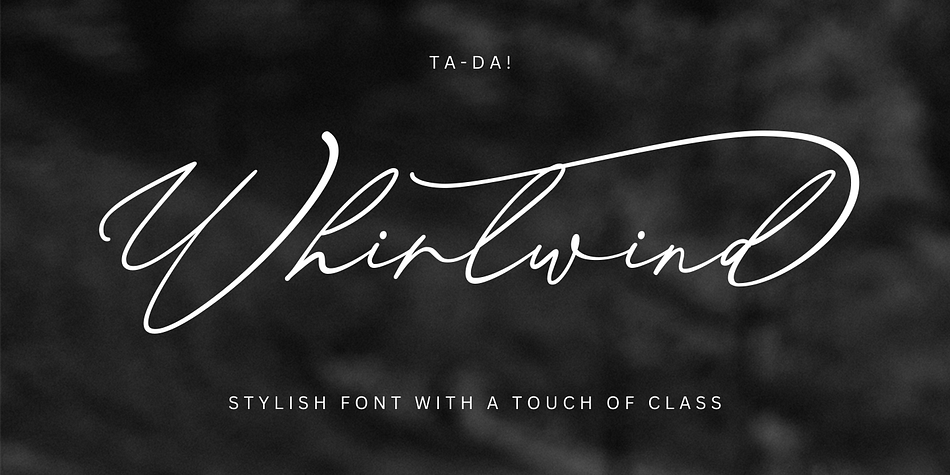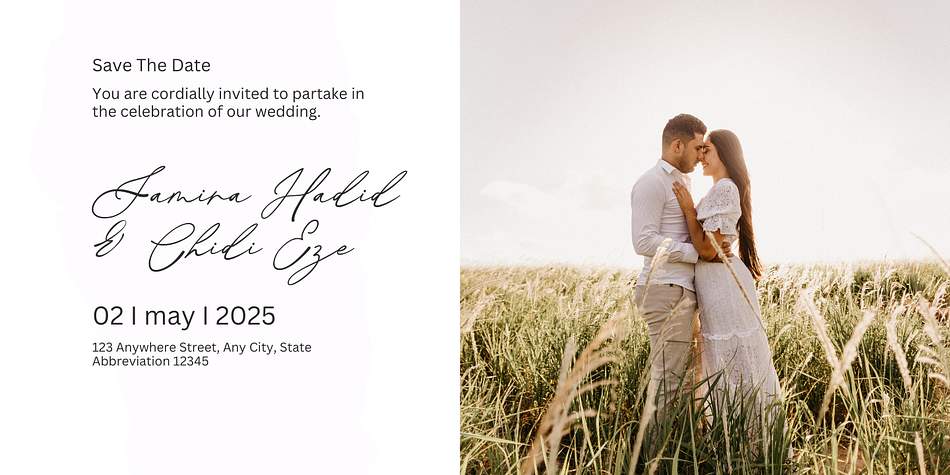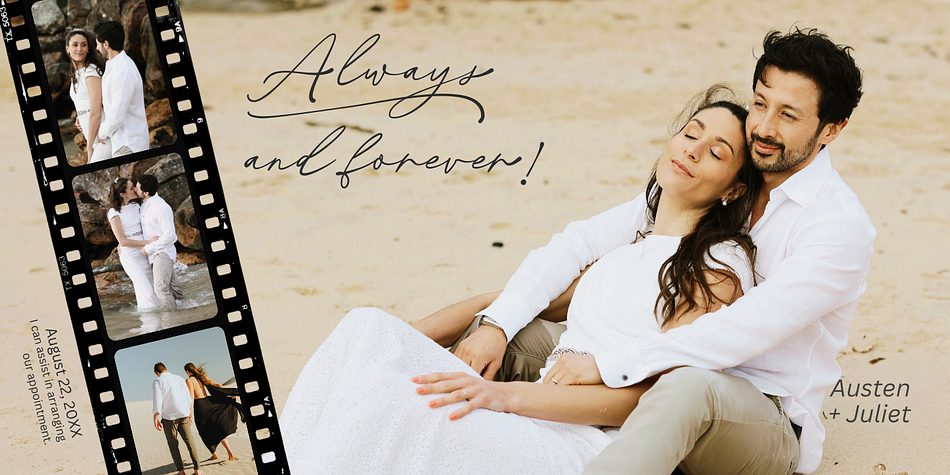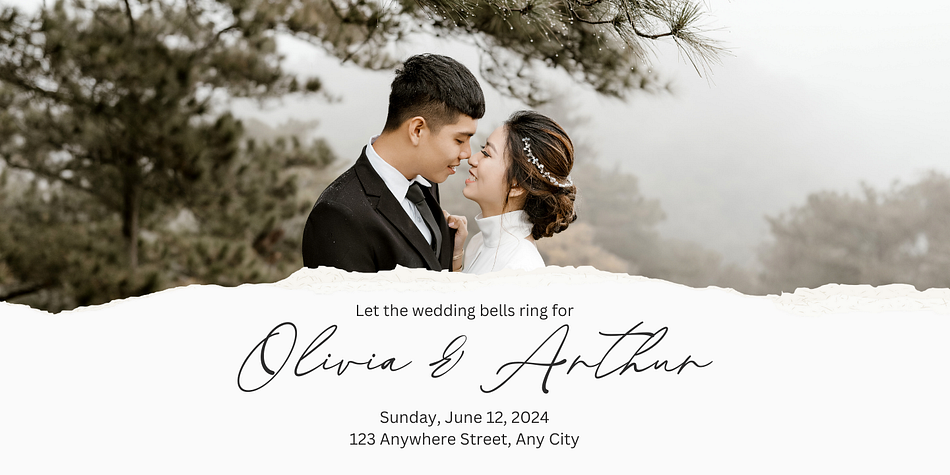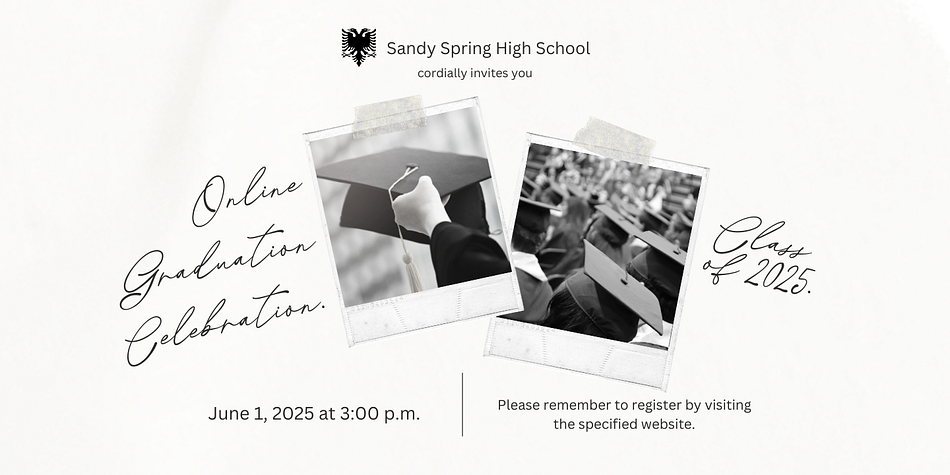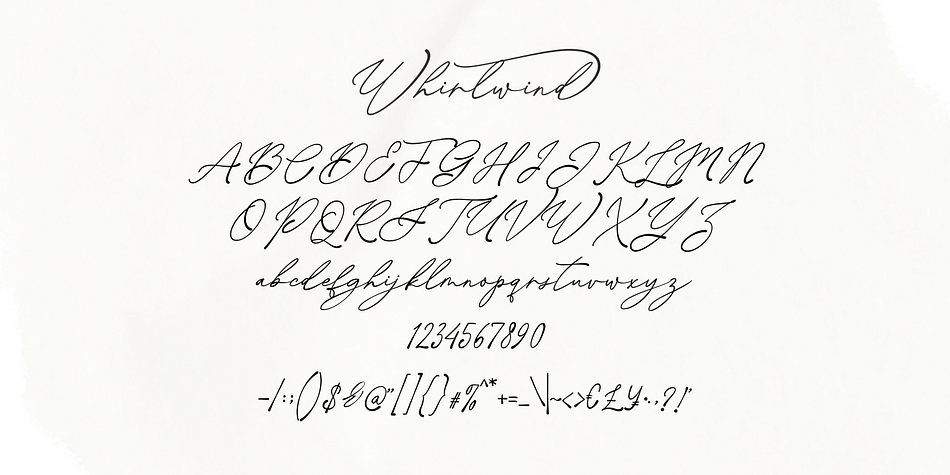
Whirlwind
Whirlwind is a modern calligraphy font family published by Gatype.
Introducing Whirlwind, a fresh handwriting font filled with charm and friendly curves. Featuring elegant ligatures, Whirlwind draws inspiration from tidy cursive handwriting, bringing a personal touch to your designs. Use it for modern logos, Instagram quotes, wedding stationery, printed materials, websites, and beyond.
For a more organic and authentic feel, a rough version of the font is also available.